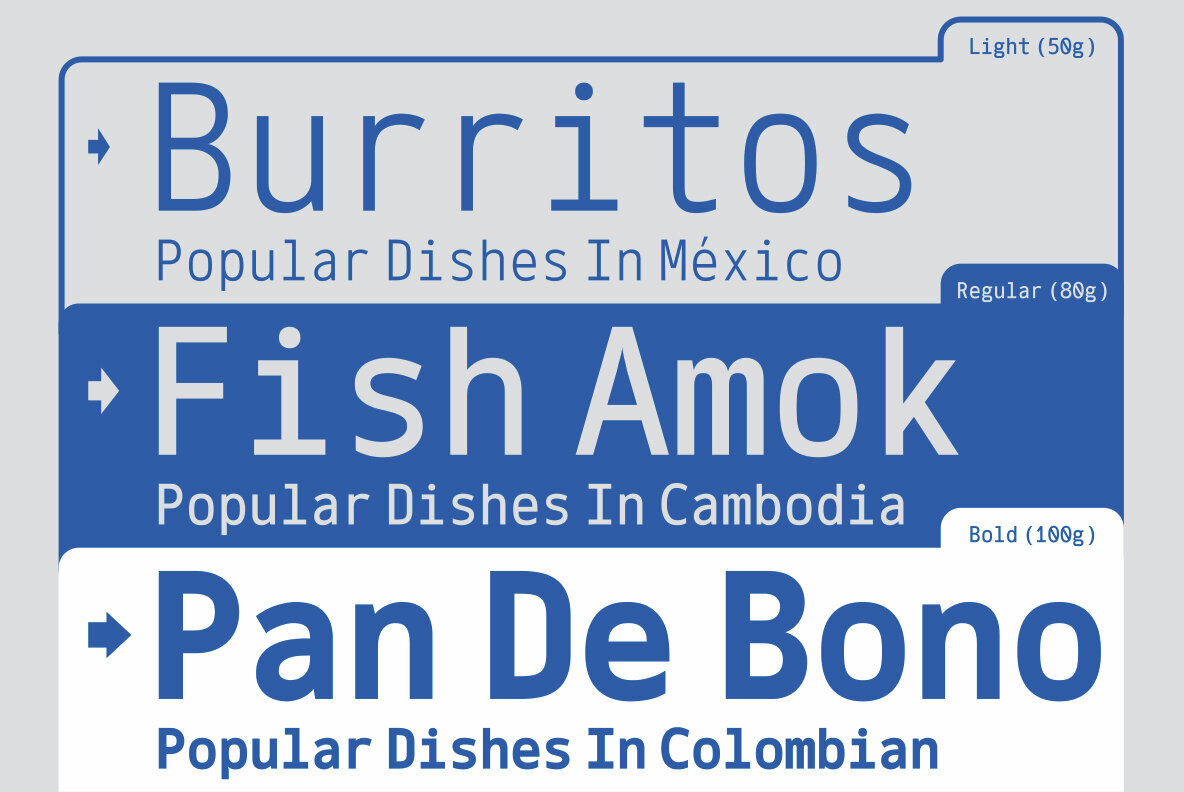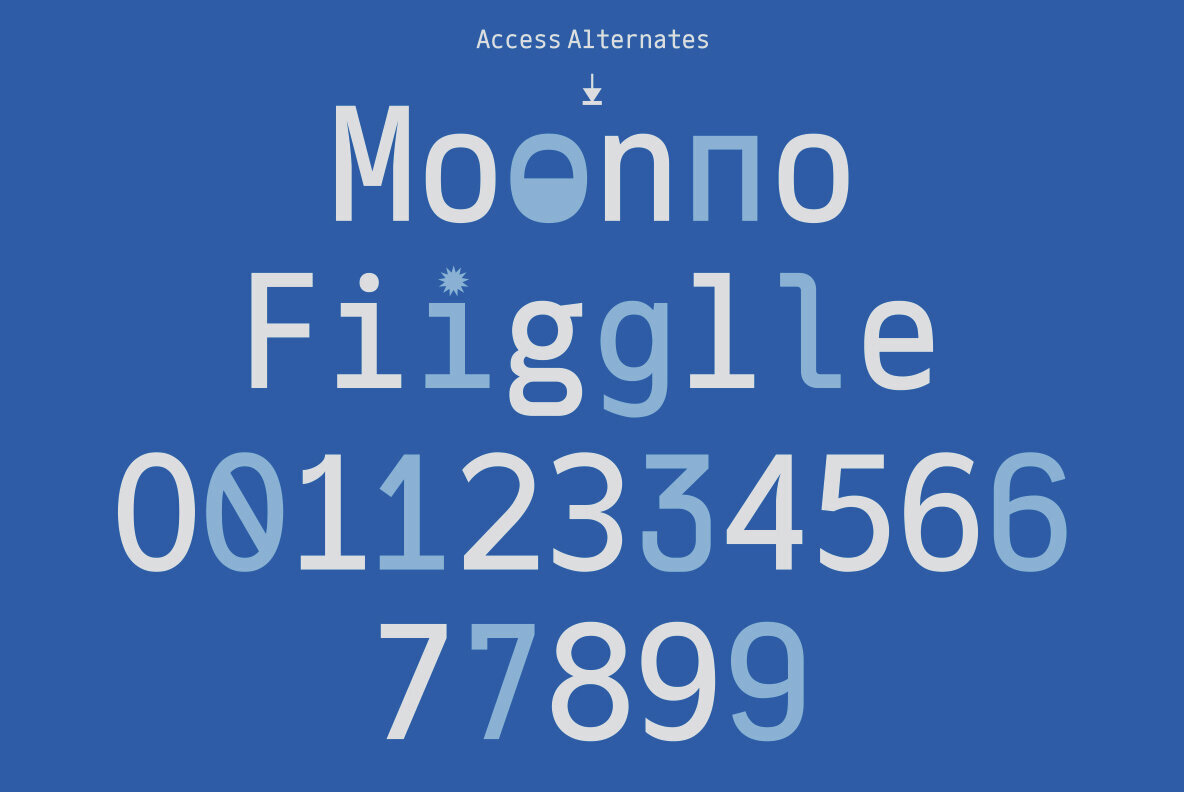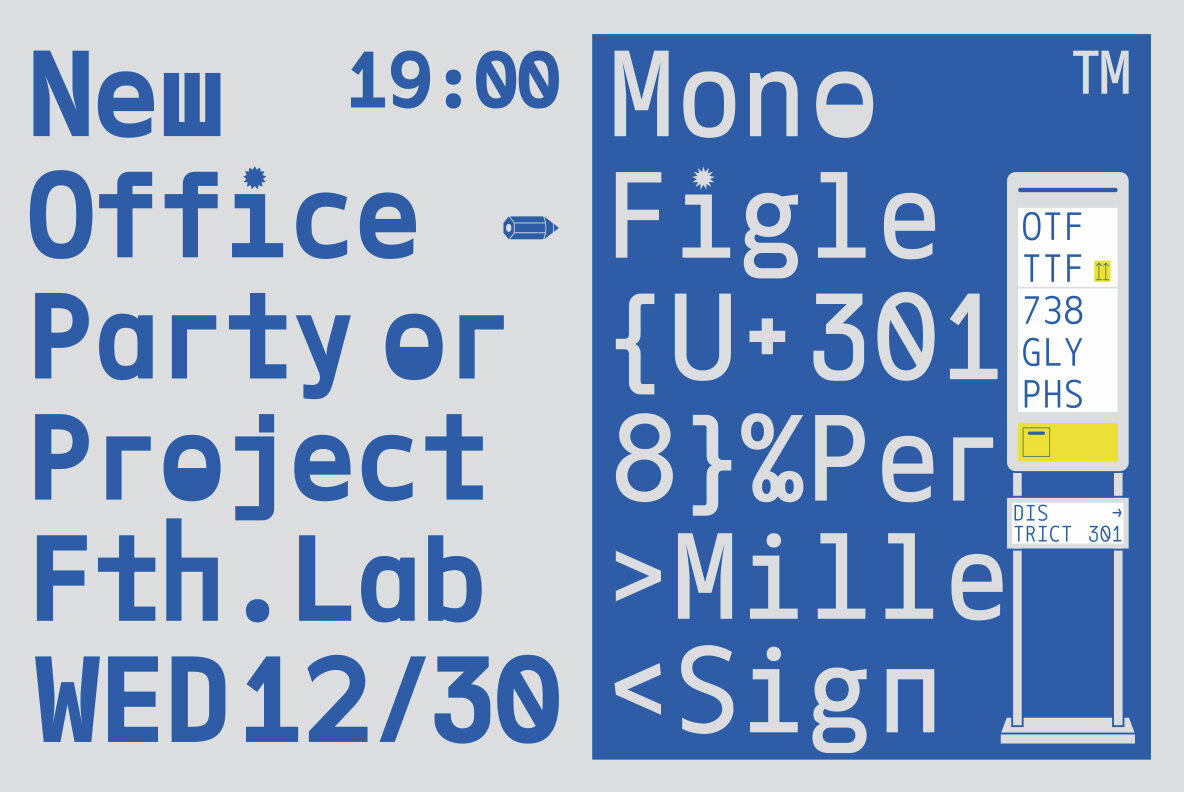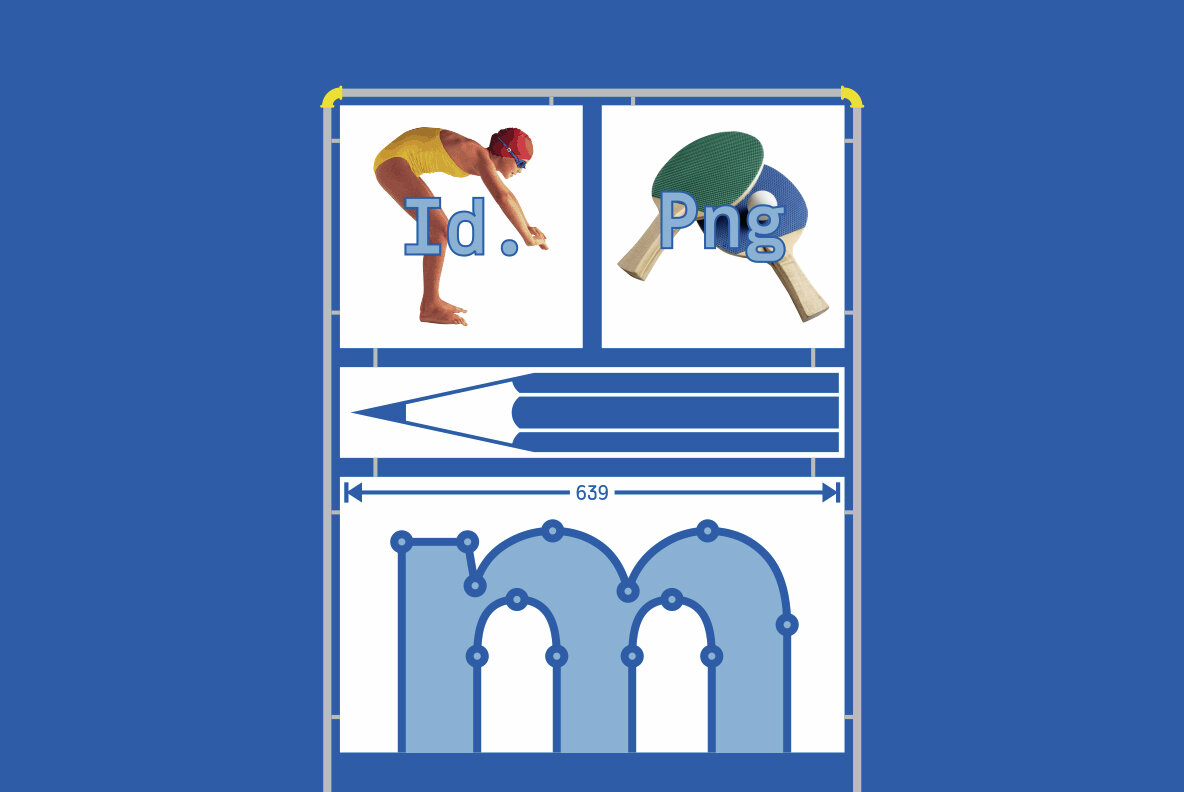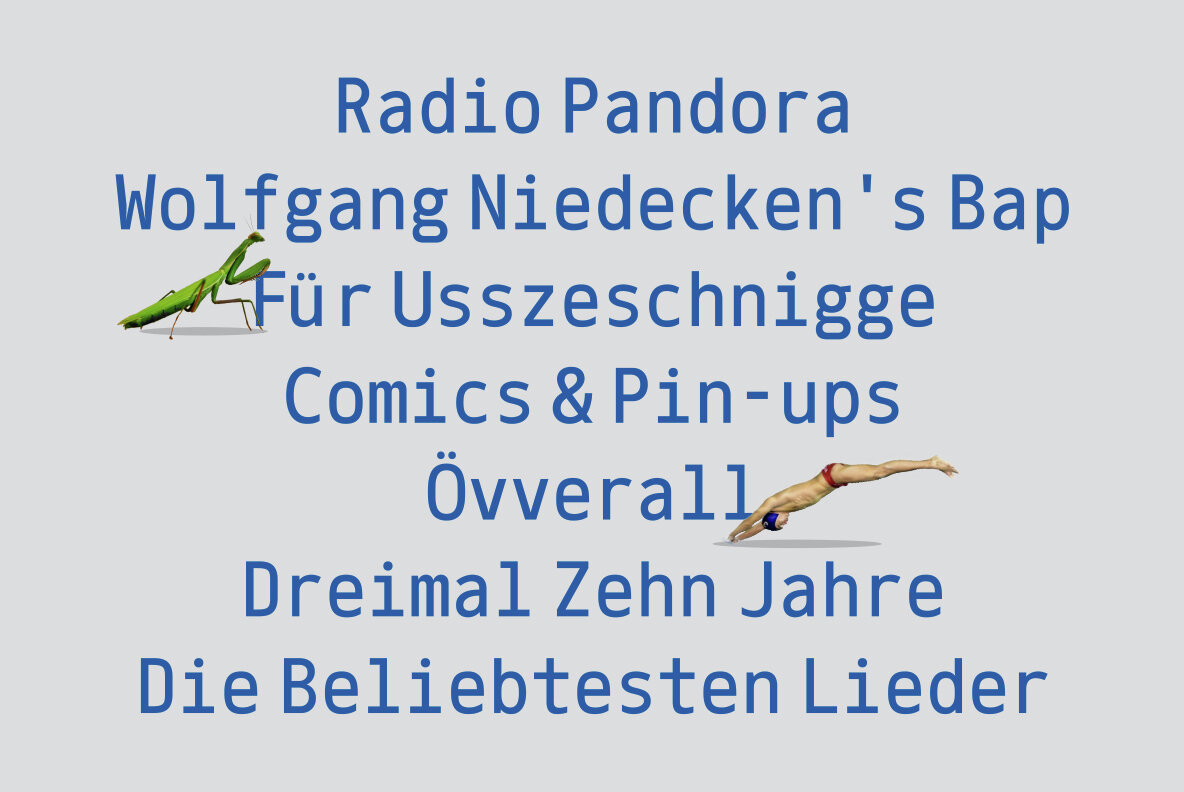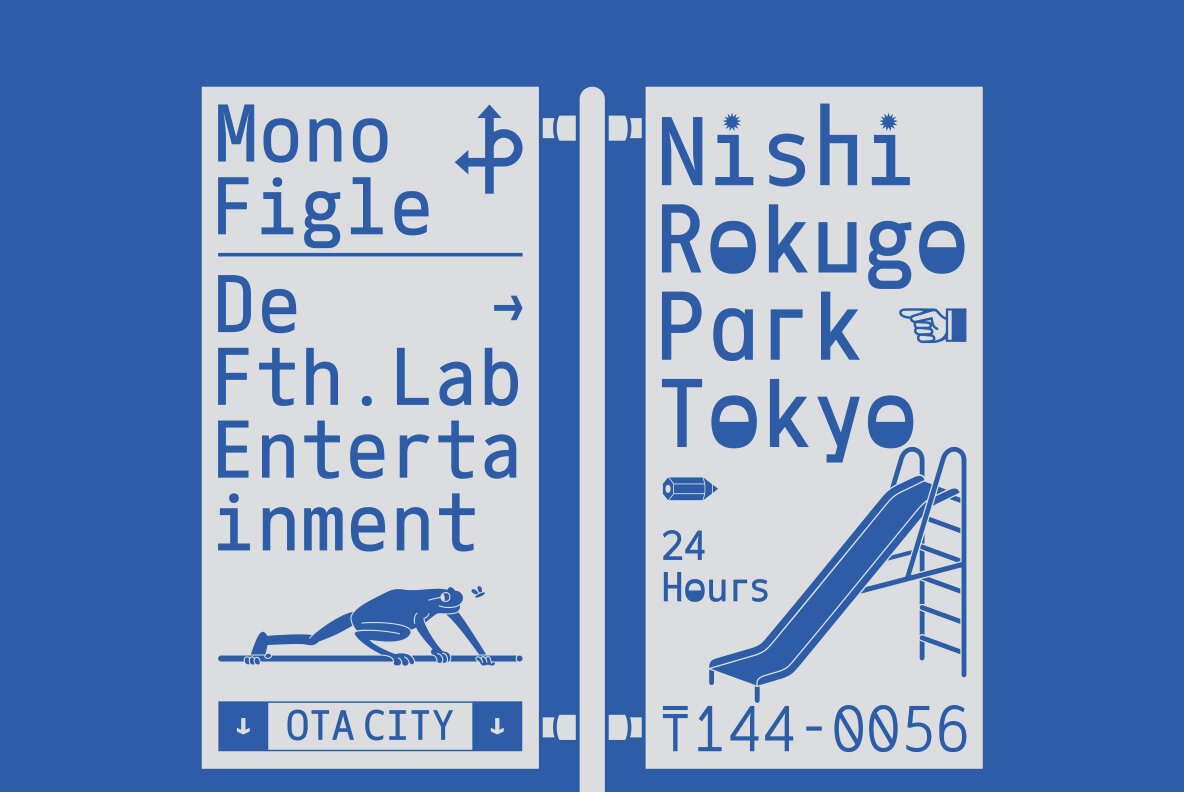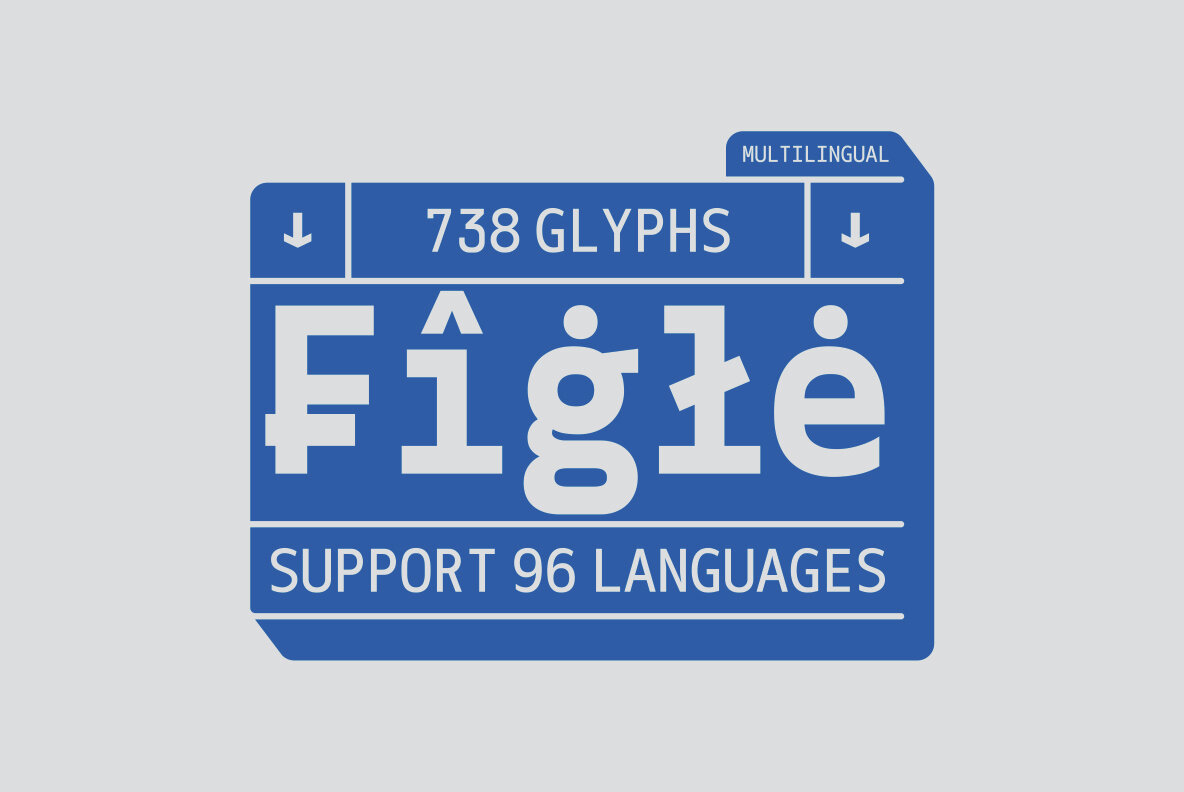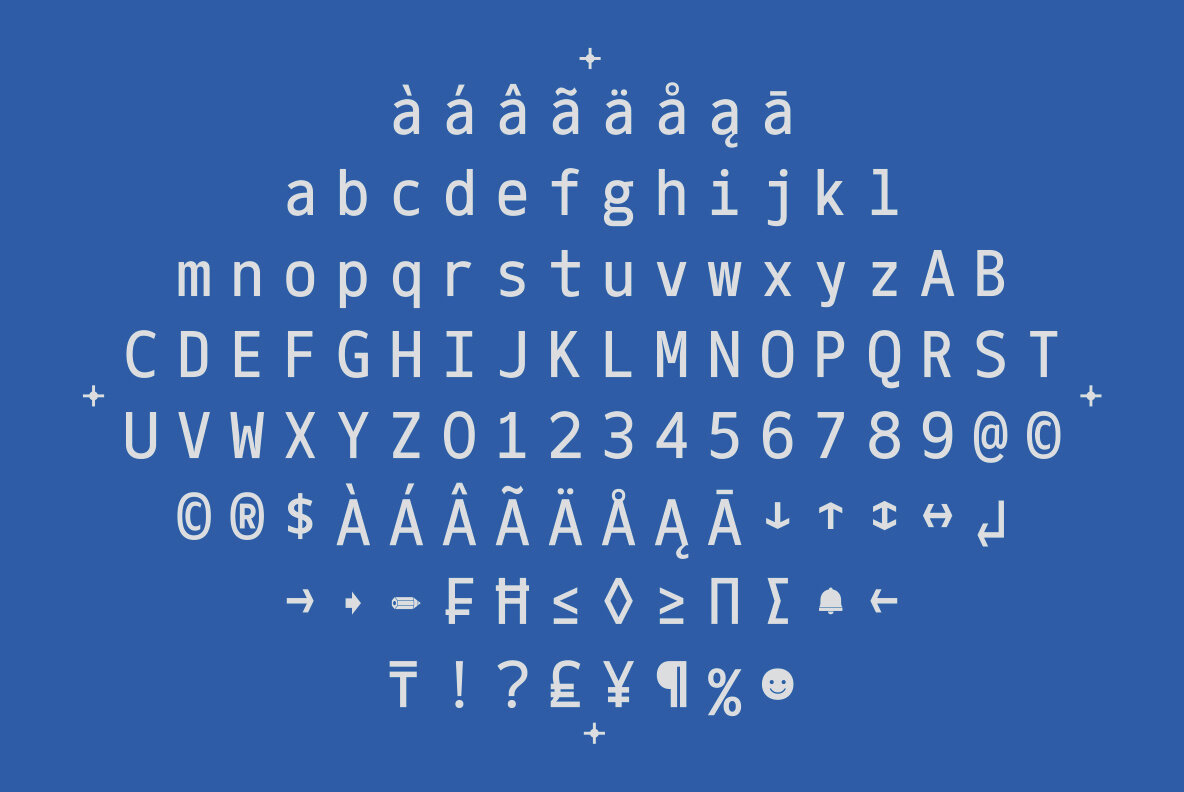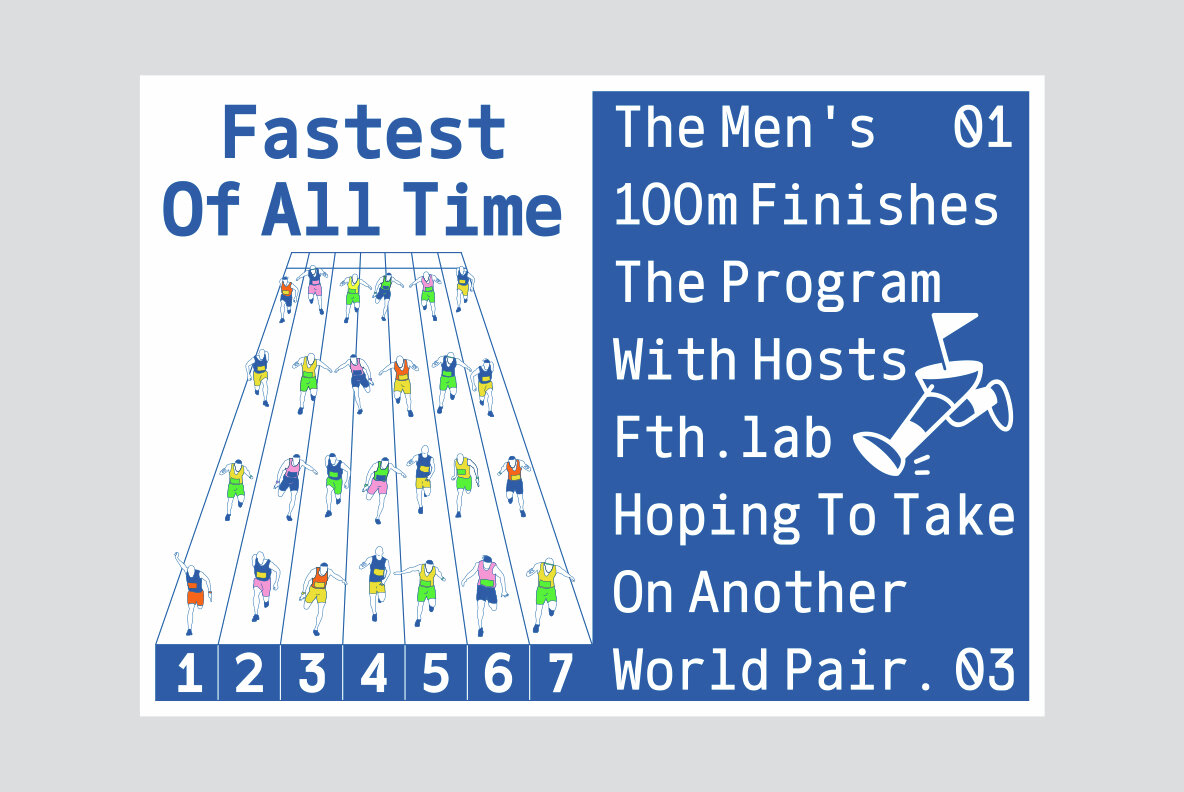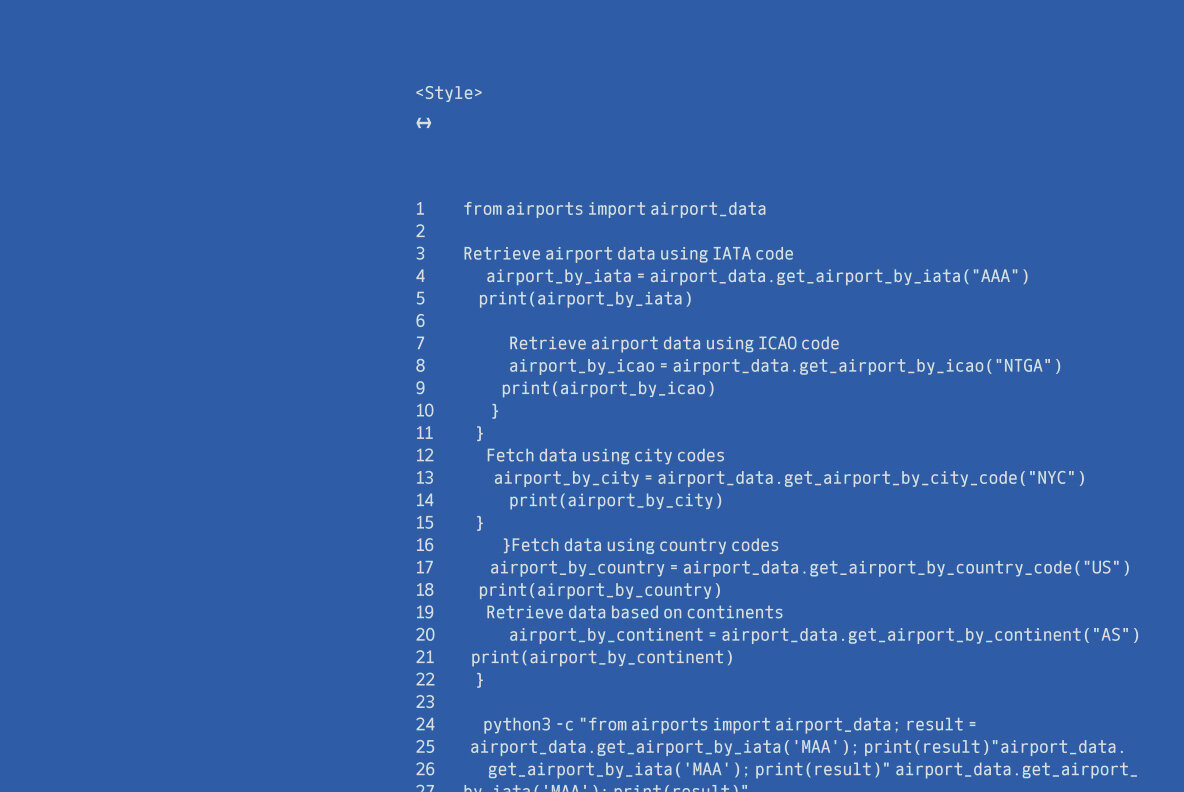
Mono Figle Font
Mono Figle is a monospaced font characterized by its consistent and dynamic style. This typeface seamlessly combines strength and softness, making it an excellent choice for modern design needs. Its bold weight provides a striking presence, suitable for logos, studio designs, posters, and social media graphics.
Driven by contemporary standards, Mono Figle shines in headlines, magazine covers, and large print formats. Whether you're crafting eye-catching visuals or professional branding elements, this font ensures your content stands out with clarity and distinction.